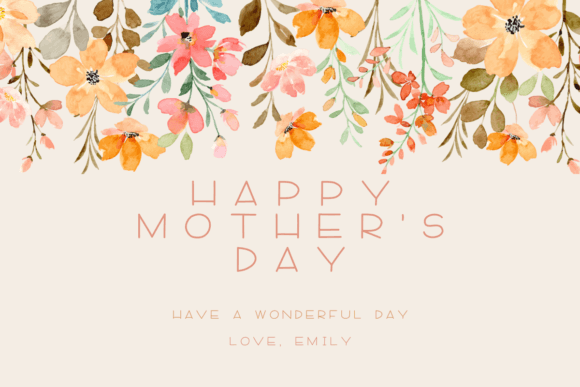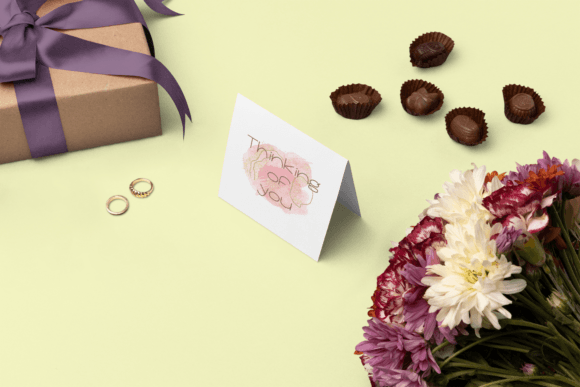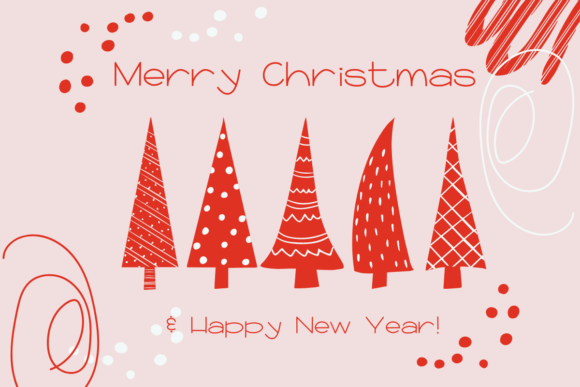
Basic Practice Handwritten Font – Simple and Cute Typeface
The Basic Practice Handwritten Font is a wide and playful script typeface designed to bring a casual, handmade feel to your projects. With its simple curves and friendly flow, it creates a charming handwritten style that looks natural and fun. Whether you’re crafting invitations, cards, or presentations, this font adds personality to your work.
A Wide Script Font with Handwritten Style
The Basic Practice Handwritten Font combines wide spacing with playful strokes, making it stand out from ordinary handwritten fonts. Its balanced letterforms are easy to read, yet they still carry a casual, handmade charm. Because of this, it works beautifully across both digital and print designs.
Perfect for Invitations and Stickers
One of the best uses of the Basic Practice Handwritten Font is in invitations, greeting cards, and stickers. Its wide strokes give a playful touch to birthday cards or party designs. In addition, it enhances school projects, posters, and craft ideas, making them feel more personalized and engaging.
The Basic Practice Handwritten Font adapts easily to multiple design needs. From apparel prints and product packaging to social media posts and scrapbooks, it adds a playful handwritten charm. As a result, it is a reliable choice for designers looking for a casual yet eye-catching style.
Why Designers Love Basic Practice Font
Designers appreciate the Basic Practice HandwrittenFont for its mix of cuteness and usability. Its wide characters make designs stand out, while its simplicity ensures readability. This balance of charm and clarity makes it a go-to option for creative professionals and hobbyists alike.
In summary, the Basic Practice HandwrittenFont is a simple, cute, and versatile wide script typeface. With its playful handwritten strokes, easy installation, and broad usability, it is perfect for invitations, cards, stickers, and craft projects. Don’t miss the chance to download Basic Practice HandwrittenFont and add a friendly touch to your creative designs.